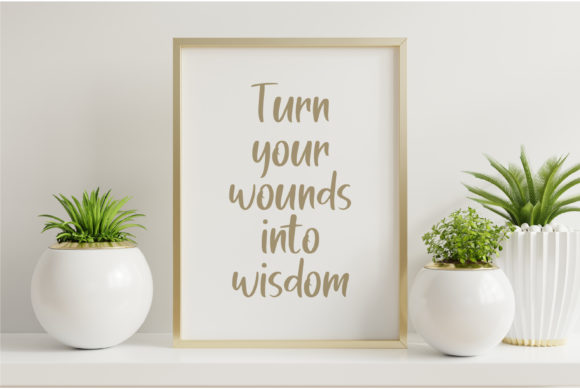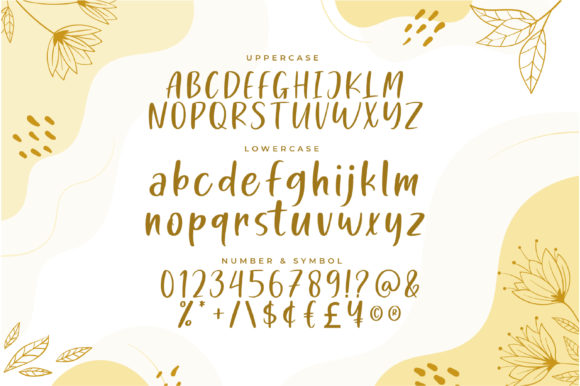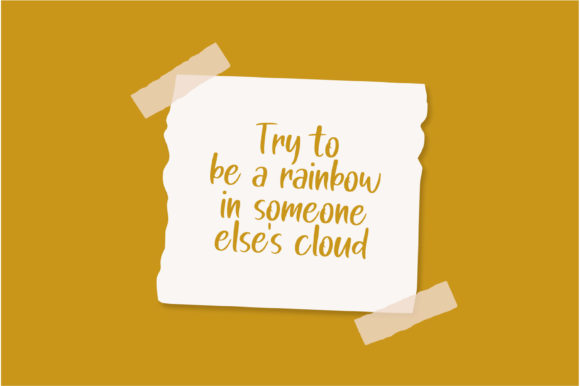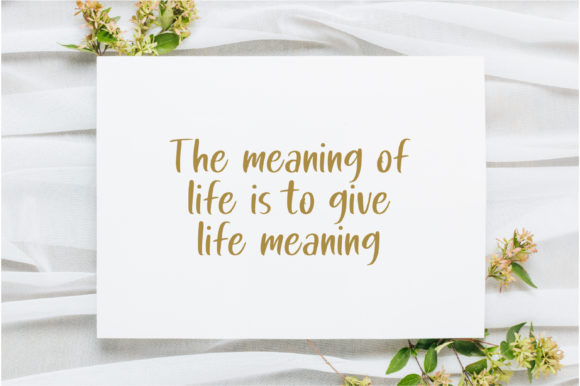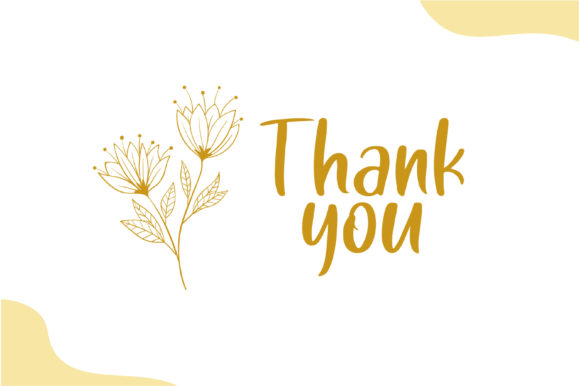
Little Things Font
Little Things is a fun and playful handwritten font perfect for kids, quotes, home decor, party invites, blog headers, t-shirts, posters & absolutely any other design & craft project!